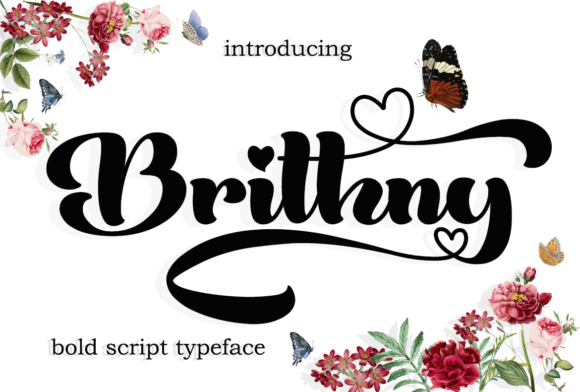
Brithny: The Enchanting Script Font for Timeless Designs
In the realm of typography, there lies a font that captivates the senses and transports you to a world of vintage glamour and timeless elegance. Brithny, a remarkable creation from the font foundry Sealoung, is a masterpiece that blends the allure of the past with the sophistication of the present.
Brithny's captivating calligraphy-inspired design exudes a charm that is both alluring and unforgettable. Its bold, sweeping strokes and delicate flourishes add a touch of whimsy and sophistication to any project, evoking a sense of nostalgia and romance.
Brithny's versatility extends far beyond its visual appeal, as it effortlessly adapts to a myriad of creative endeavors. Whether you seek to craft an eye-catching logo, elevate your apparel designs, design elegant invitations, or create captivating magazines, Brithny emerges as the perfect companion. Its timeless beauty lends itself seamlessly to branding, packaging, advertising, fashion, make-up, stationery, novels, labels, and so much more.
With Brithny, you can effortlessly transform ordinary designs into captivating works of art. Its graceful curves and intricate details add a touch of luxury and refinement to any project, leaving a lasting impression on your audience.
Embrace the allure of Brithny and embark on a creative journey that knows no bounds. Let its undeniable charm captivate your imagination and transport you to a world of timeless beauty.